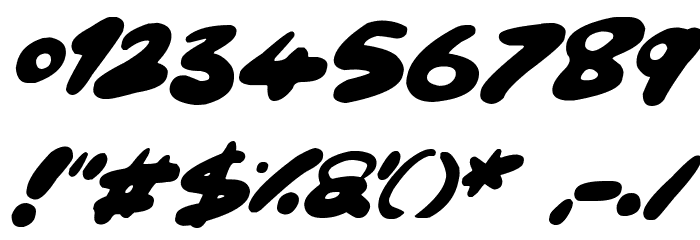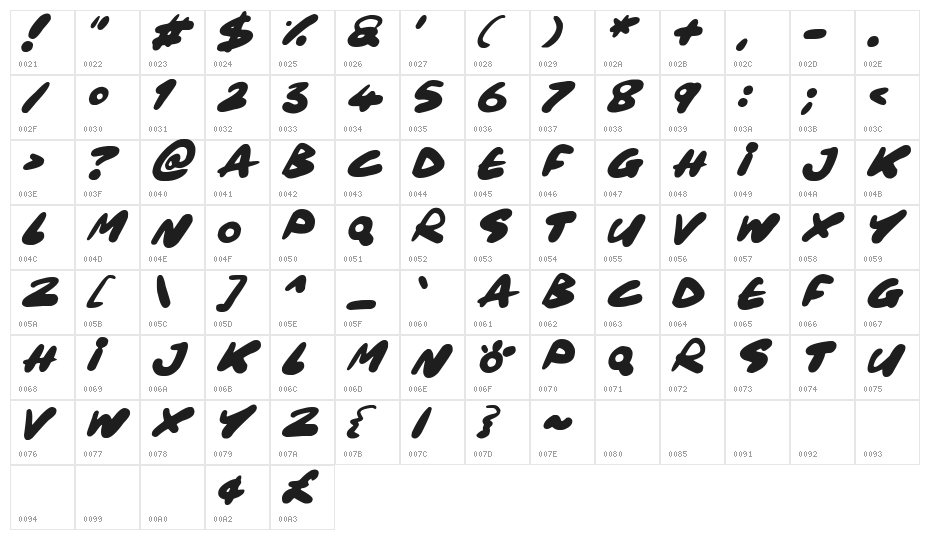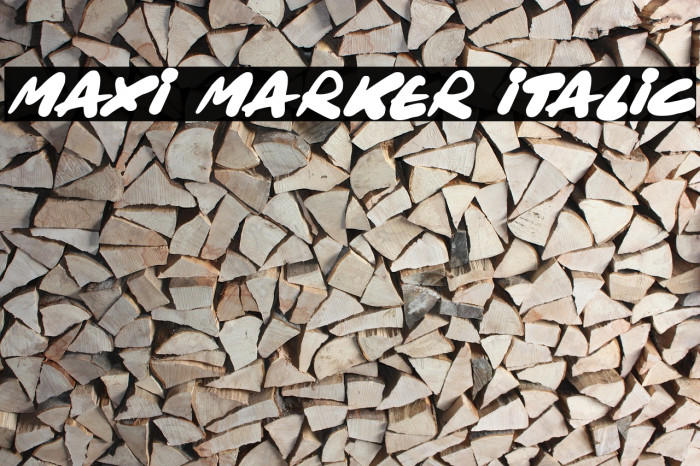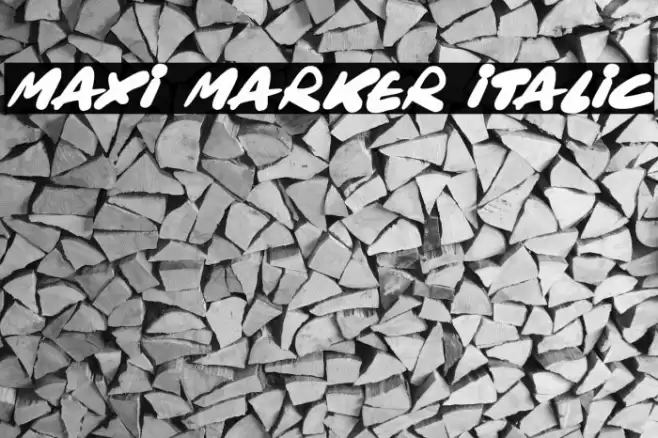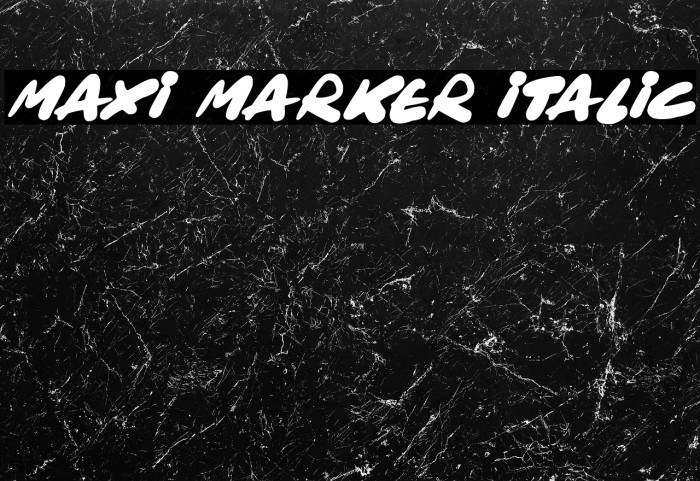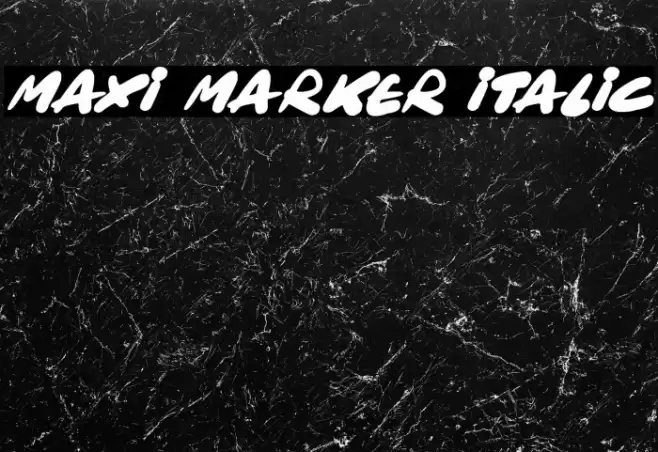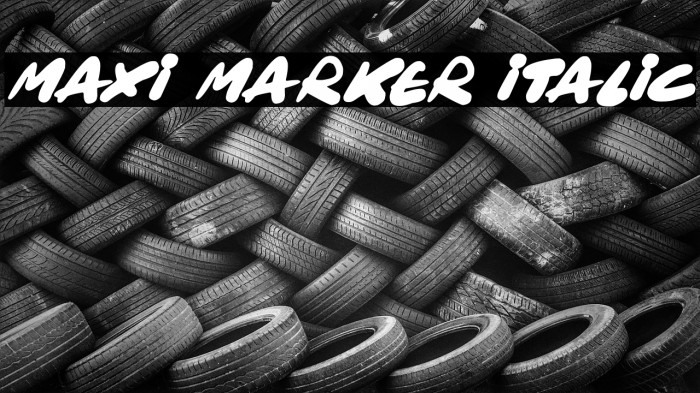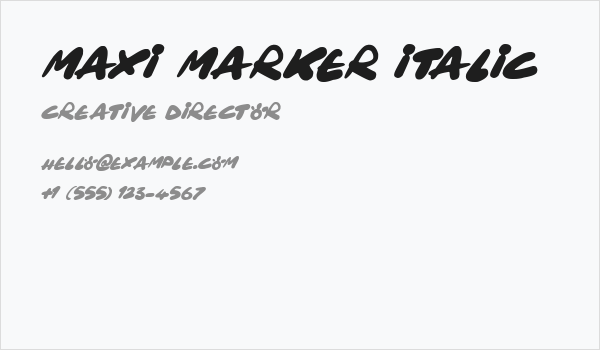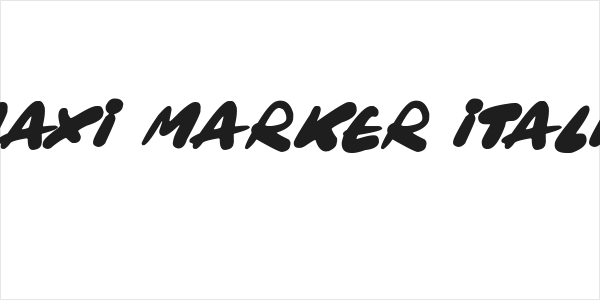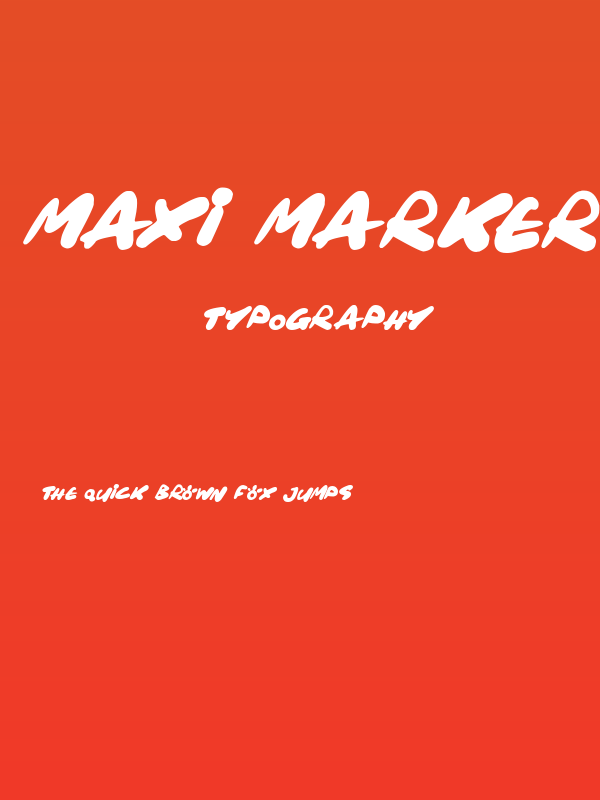
Maxi Marker Italic Font
Maxi Marker Italic Description
This font features a bold, dynamic style with a handwritten appearance, reminiscent of marker pen strokes. The letters are slightly slanted, adding a sense of movement and energy. The characters are thick and rounded, giving a friendly and approachable feel. The uppercase and lowercase letters maintain a consistent style, with smooth curves and a playful aesthetic. The numbers and special characters are equally bold and expressive, ensuring readability while maintaining the overall style. This font is perfect for projects that require a personal touch or a casual, informal vibe.
| Overall Style | Casual, Energetic |
| Proposed Projects | Ideal for posters, logos, branding, and any design needing a personal, energetic touch. |